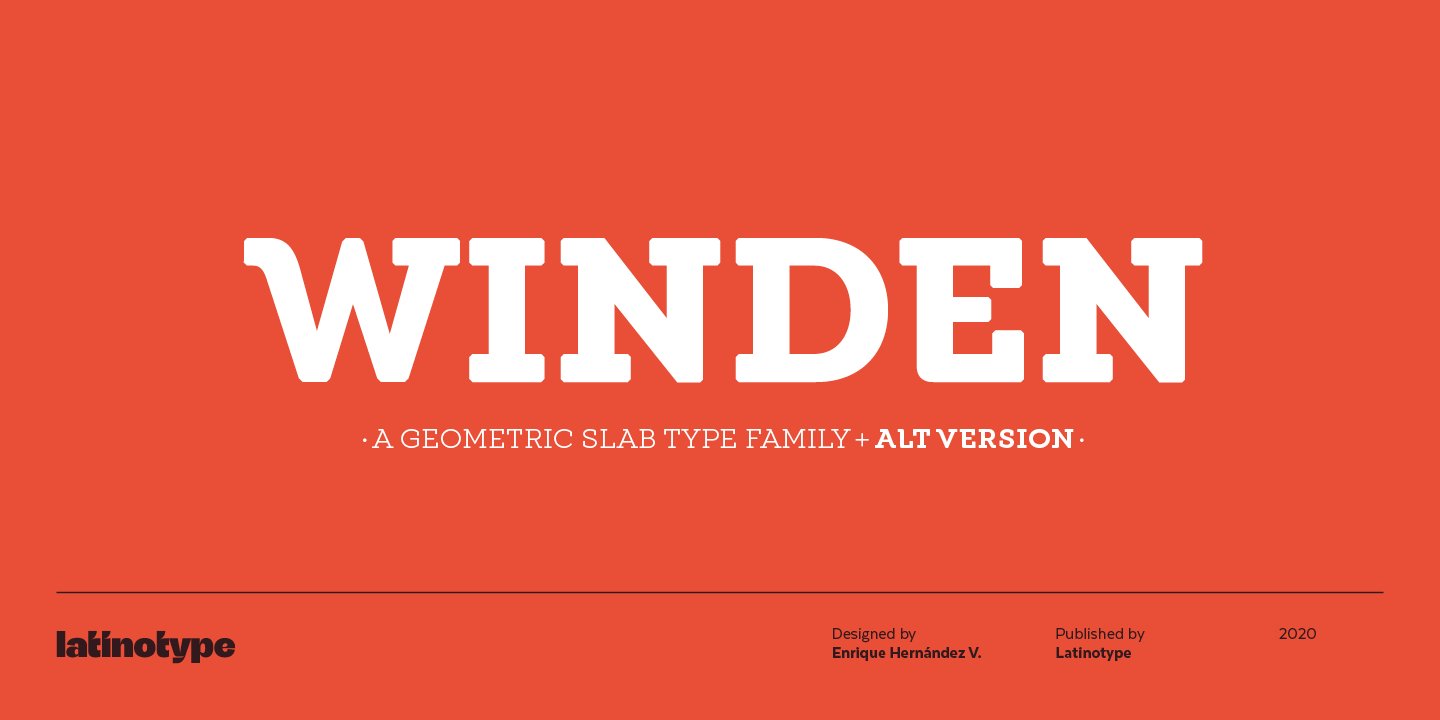
The Winden Font is exceptionally suited for numerous atmospheric and creative applications including mystery novel covers, thriller movie titles, dark fantasy branding, atmospheric poster designs, gothic fashion campaigns, supernatural event promotions, horror game interfaces, occult-themed graphics, mysterious brand communications, and enigmatic advertising campaigns. Its distinctive character makes it particularly effective for entertainment companies, creative agencies, alternative lifestyle brands, and media producers seeking to convey mystery, intrigue, and atmospheric sophistication in their visual communications and brand presentations.
What makes the Winden Font extraordinarily exciting is its perfect capture of mysterious ambiance and atmospheric tension combined with contemporary design sophistication. This captivating typeface embodies the essence of supernatural mystery and enigmatic storytelling while incorporating modern typographic principles that ensure optimal performance across today's diverse entertainment landscape. The font's compelling character emerges from its haunting letterforms, shadowy proportions, and carefully crafted details that evoke a sense of otherworldly intrigue and mysterious allure, making it perfect for brands seeking to establish atmospheric depth and appeal to mystery-loving, genre-enthusiast audiences.
The Winden Font family offers a comprehensive collection of weights and styles designed to accommodate various atmospheric branding requirements. The collection typically includes light, regular, medium, bold, and black weights, with many versions featuring shadowy italic variants that enhance the font's mysterious appeal and enigmatic character. Some editions may include distressed alternates, atmospheric effects, and supernatural elements that provide additional design options for creating unique typographic treatments and mystery-focused brand applications.
Creative professionals and atmospheric design specialists consistently select the Winden Font Free Download for its exceptional mystery and cinematic impact. The font features carefully engineered spacing and kerning that maintains readability while preserving its distinctive atmospheric character, ensuring effective communication across various mysterious applications and supernatural brand contexts. Its robust construction works well in both digital and print environments, while the comprehensive character set includes uppercase and lowercase letters, numerals, punctuation marks, and special symbols, along with extensive language support for international mystery projects and global entertainment communications.
The Winden Font represents the perfect fusion of supernatural atmosphere and professional design standards, combining mysterious aesthetics with contemporary functionality. Its enigmatic appearance appeals to mystery enthusiasts while maintaining the sophistication required for serious entertainment business applications. The font's remarkable adaptability allows it to work effectively in both traditional gothic contexts and modern atmospheric branding, ensuring consistent mysterious appeal across entertainment websites, thriller publications, supernatural marketing, and atmospheric design campaigns.
Embrace mystery and atmospheric sophistication with the enigmatic allure and supernatural elegance of the Winden Font, the ultimate choice for atmospheric typography excellence.